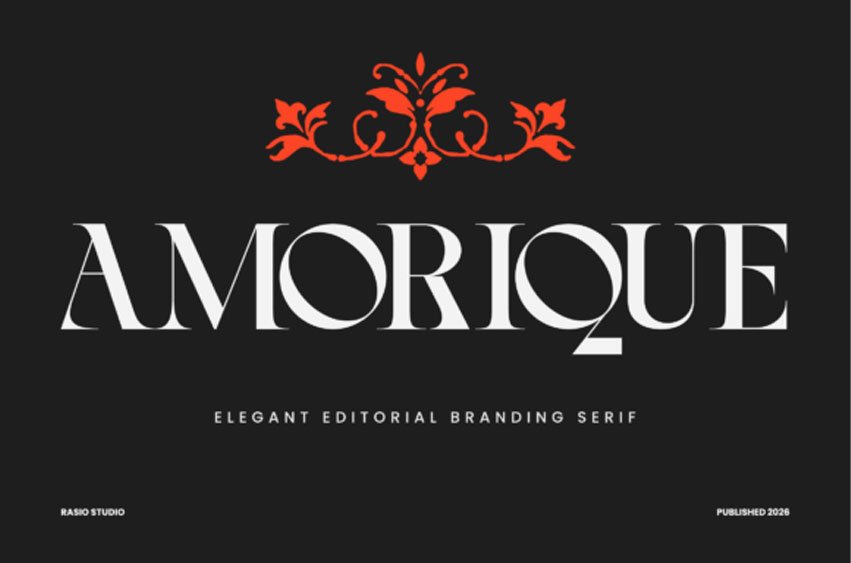
Amorique Font
Amorique Font is a sophisticated display typeface defined by sharp high-contrast strokes, refined proportions, and distinctive sculpted terminals. Inspired by luxury editorials and classic fashion typography, the design combines slender vertical stems with graceful curves and geometric counters, creating a striking visual rhythm that feels both timeless and contemporary.
The typeface features carefully crafted letterforms with subtle wedge serifs and expressive details that add character without compromising clarity.